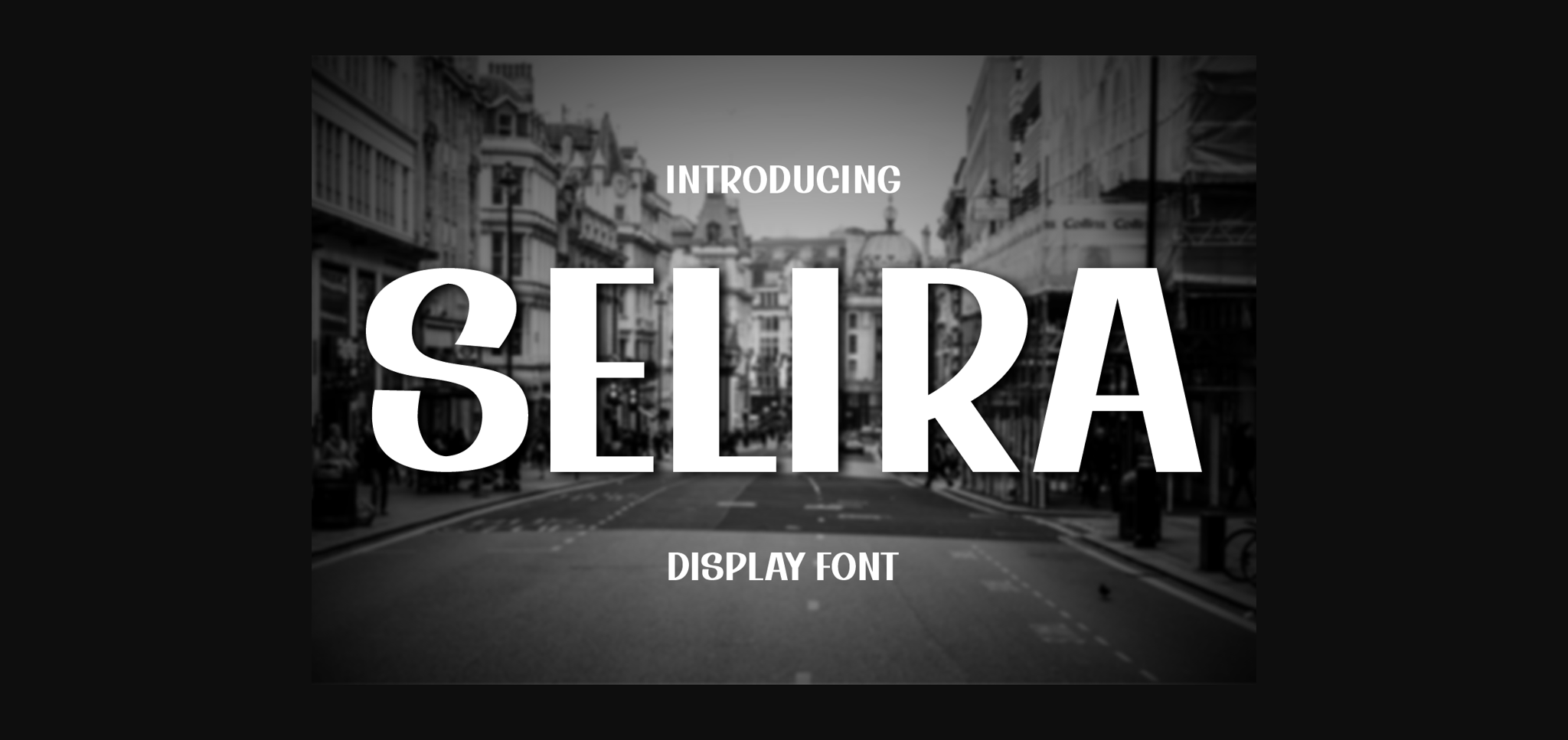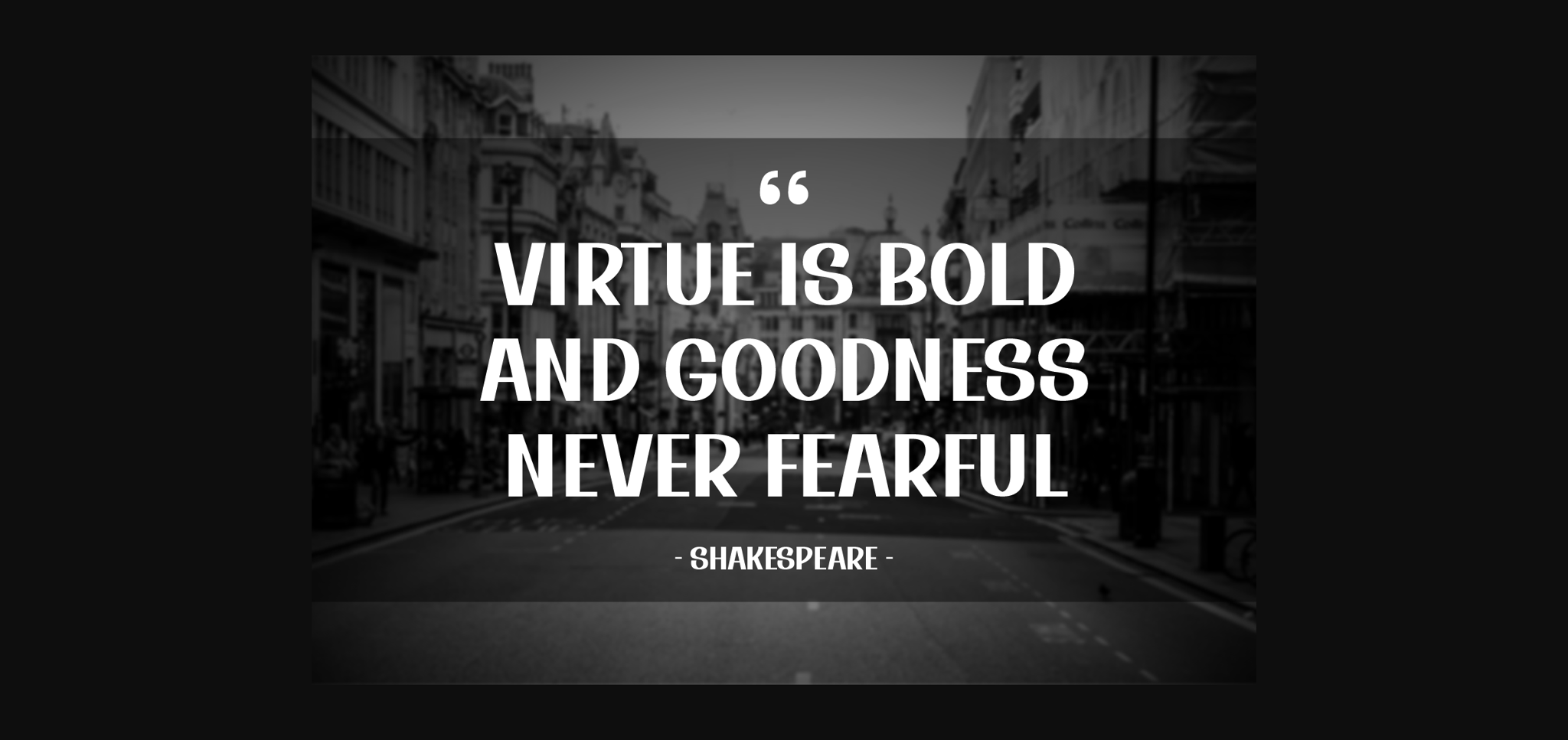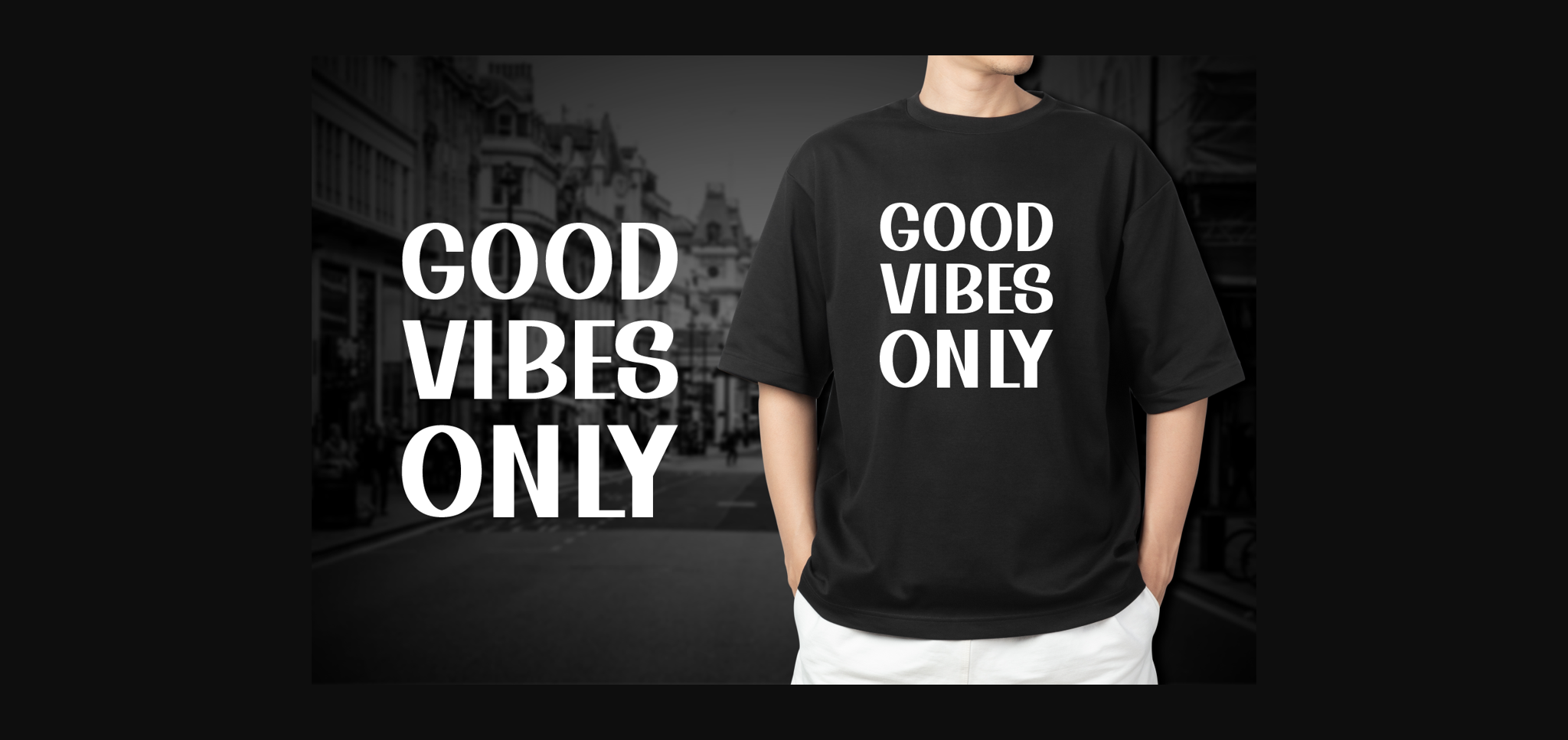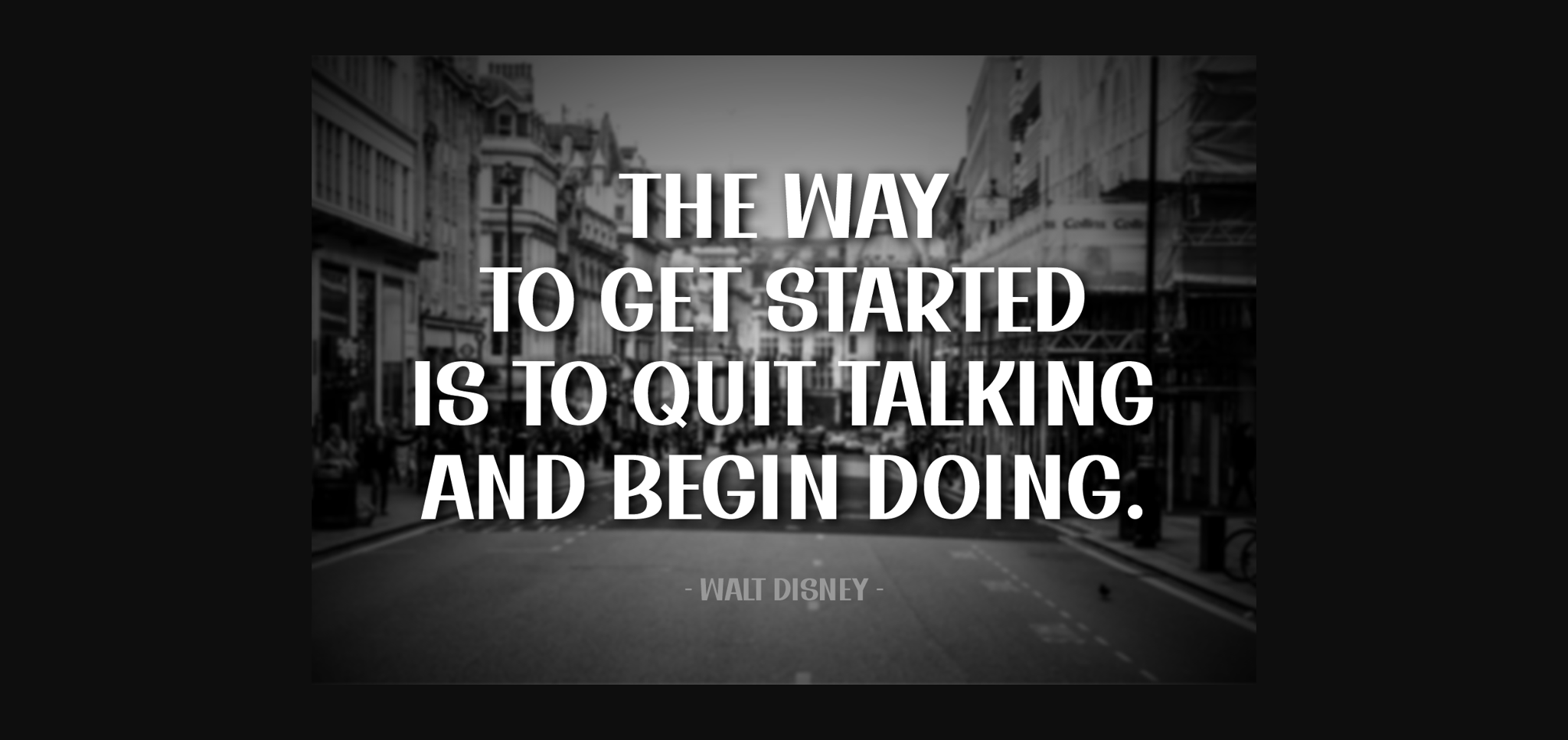
About Selira Font
Selira, a captivating display font, adds a touch of uniqueness to your projects. With its stylish and modern design, Selira stands out effortlessly. Perfect for headers, logos, and attention-grabbing text, this font brings a contemporary flair to any creative endeavor. Explore the simplicity and elegance of Selira for a distinctive and eye-catching typographic experience.